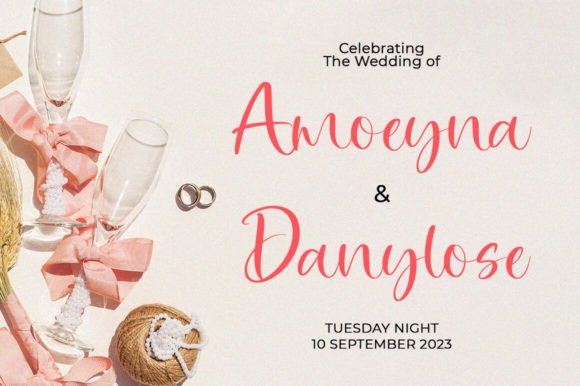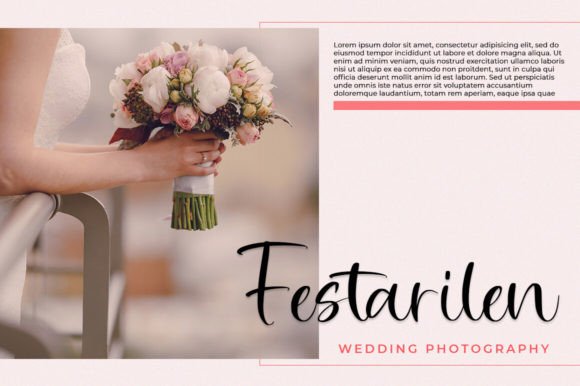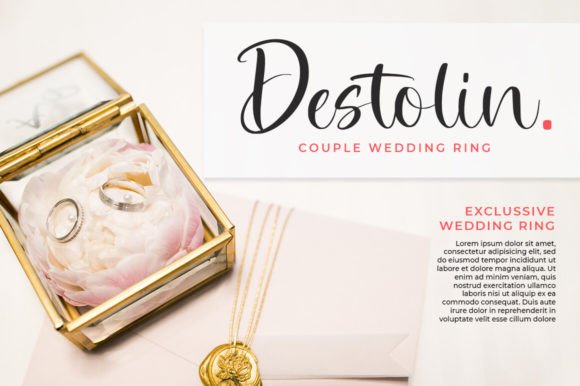
Introduction to Quesadile Font
Have you ever stumbled upon a design that makes your heart skip a beat? For designers, those moments are pure magic. The thrill of discovering the perfect font to elevate a creative project is one that never gets old. And that’s exactly what we’re about to dive into – the enchanting world of the Quesadile Font.
As a versatile script font, Quesadile Font has a way of adding a touch of romance to any design. Whether you’re working on a greeting card, crafting a headline, or simply need a unique touch for your next project, this font is sure to impress. And the best part? It’s available for free download, making it an invaluable design resource for creatives of all levels.
Key Features of Quesadile Font
- High-quality, unique design with a transparent background, making it ideal for creative projects.
- Each character is carefully crafted with attention to detail, resulting in a professional and polished look.
- Perfect for use in logos, branding materials, and other creative projects where a unique and eye-catching font is required.
Honest Review: Quesadile Font
I recently stumbled upon the Quesadile Font and was excited to give it a try. This font is a great addition to any design resource, perfect for creative projects where a playful touch is needed.
One thing that works well with the Quesadile Font is its versatility. It comes in a variety of weights and styles, making it easy to use in different design contexts. I particularly appreciate the transparent background option, which allows for seamless integration with other design elements. The high quality of the font is also evident in its crisp and clean lines.
Here are some of the features that I enjoy about the Quesadile Font:
- Wide range of weights and styles
- High quality and crisp lines
While the Quesadile Font is a great addition to any design resource, there are a few limitations to be aware of:
- ⚠️ Limited support for certain operating systems
- ⚠️ Not ideal for formal or professional designs
Overall, I’m impressed with the Quesadile Font and would recommend it to designers looking for a fun and creative font for their next project. ✨
How to Use Quesadile Font
The Quesadile Font is a high-quality design resource perfect for creative projects that require a unique and eye-catching touch. With its transparent background and free download availability, it’s an excellent addition to any designer’s toolkit.
Tips for Getting the Most Out of the Quesadile Font
To get the most out of the Quesadile Font, experiment with different font sizes, colors, and combinations. You can also use it in conjunction with other design elements to create a unique and eye-catching design.
The Quesadile Font is perfect for a variety of creative projects, including:
– Social media graphics and ads
– Logos and branding materials
– Presentations and reports
– Creative writing and editing projects
Alternatives to Quesadile Font
Pacifico is a beautiful, high-quality font perfect for creative projects that require a touch of elegance. It features a transparent background, making it ideal for use on transparent or gradient backgrounds.
When to use: Wedding invitations, fashion magazines, and other high-end design projects.
Comparison to Quesadile Font: While Quesadile Font has a more playful, cursive feel, Pacifico Font is more sophisticated and refined.
Great Vibes is a free download font that’s perfect for designers looking for a high-quality, creative font. It features a unique, handwritten style that’s perfect for adding a personal touch to your design project.